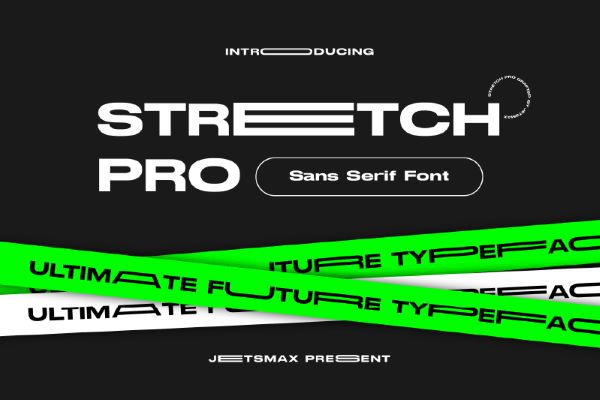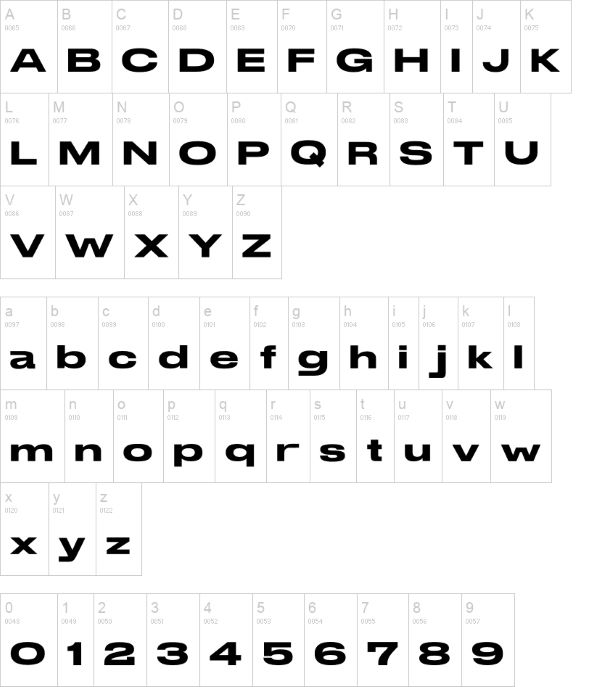
Stretch Pro Font
Stretch Pro Font is a bold, modern sans-serif typeface with wide, expanded letterforms designed for maximum visual impact. Its clean geometry and strong presence make it perfect for headlines, posters, logos, sports branding, and advertising. Stretch Pro delivers power, clarity, and a striking contemporary look that instantly grabs attention.
➤ Font Name: Stretch Pro
➤ Designer: Jetsmax Studio
➤ Style: Sans serif